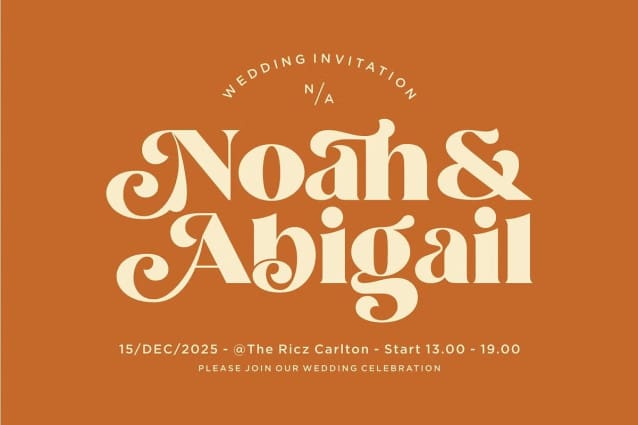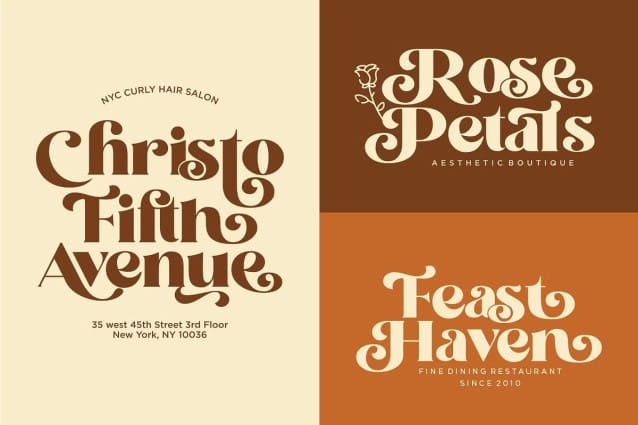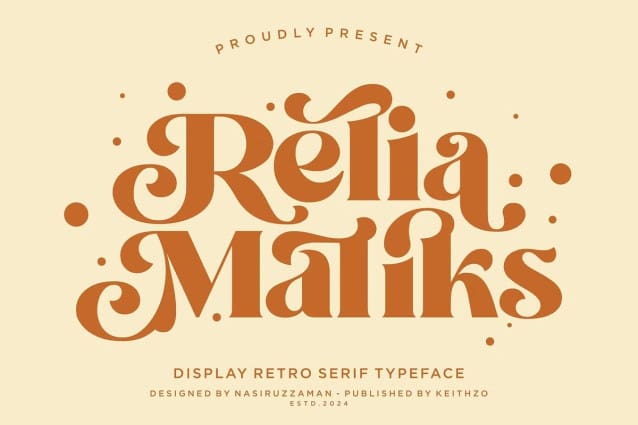
Relia Maliks Font
Relia Maliks Font , a throwback to yesteryears with a playful and nostalgic character. Boasting an impressive vintage aesthetic, this serif font effortlessly drenches a whole spectrum of design ideas in retro elegance. With its applicability ranging from logos to magazine layouts and even wedding invitations, Relia Maliks has a versatile charm that seamlessly fits into an eclectic range of projects. Its appeal extends to social media posts too, breathing life into Instagram stories, quotes, blog entries, and other branding endeavors. Experience the brush of the past while keeping your creativity fresh with Relia Maliks.